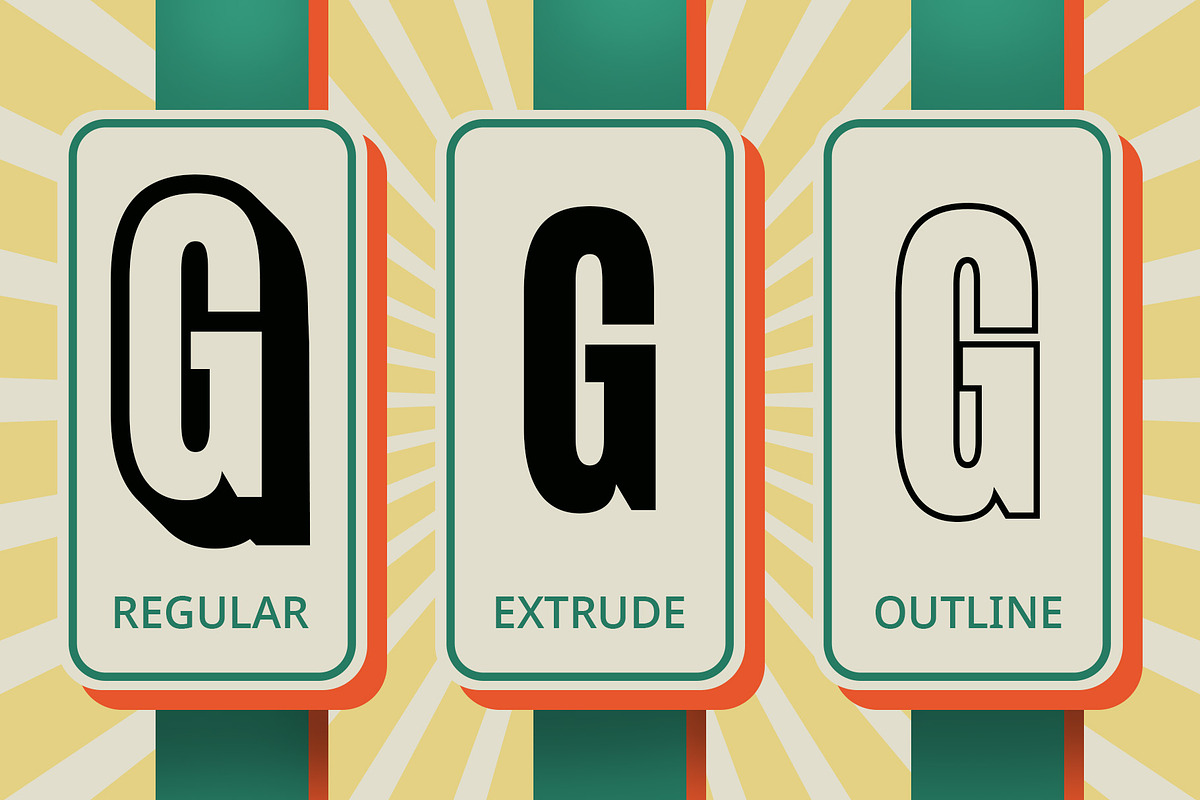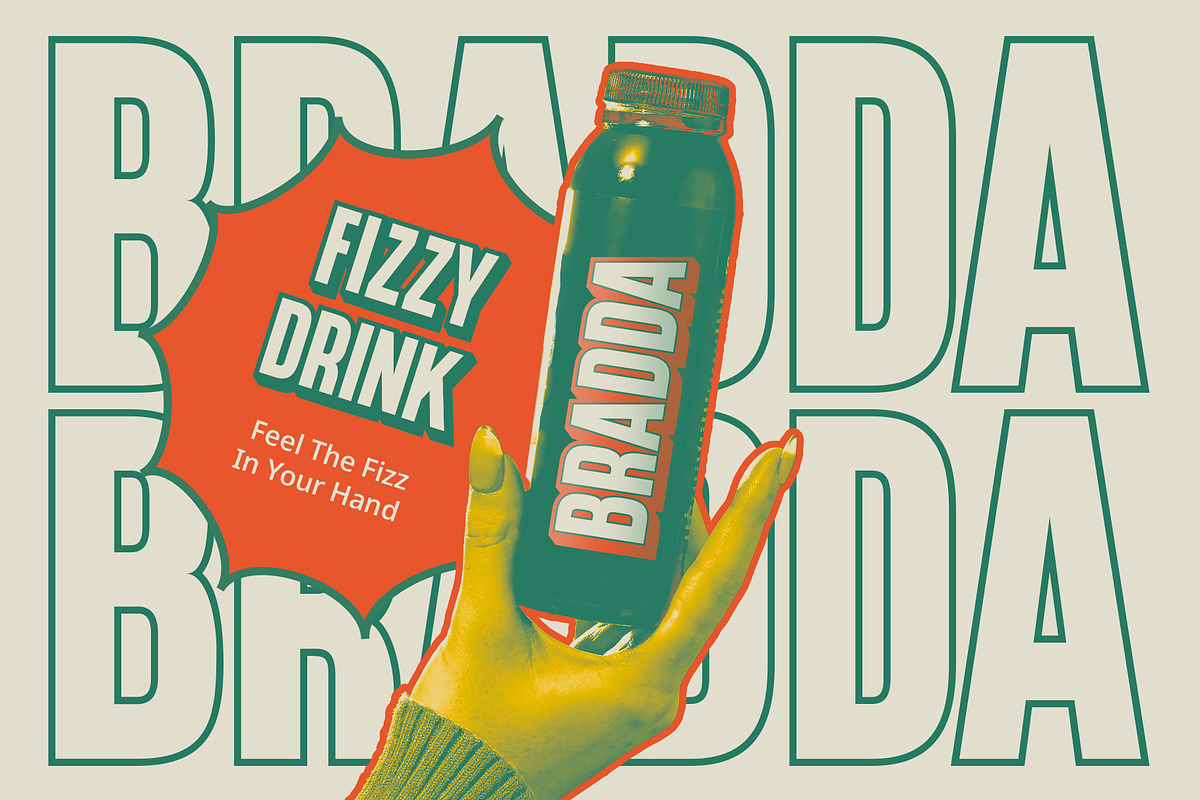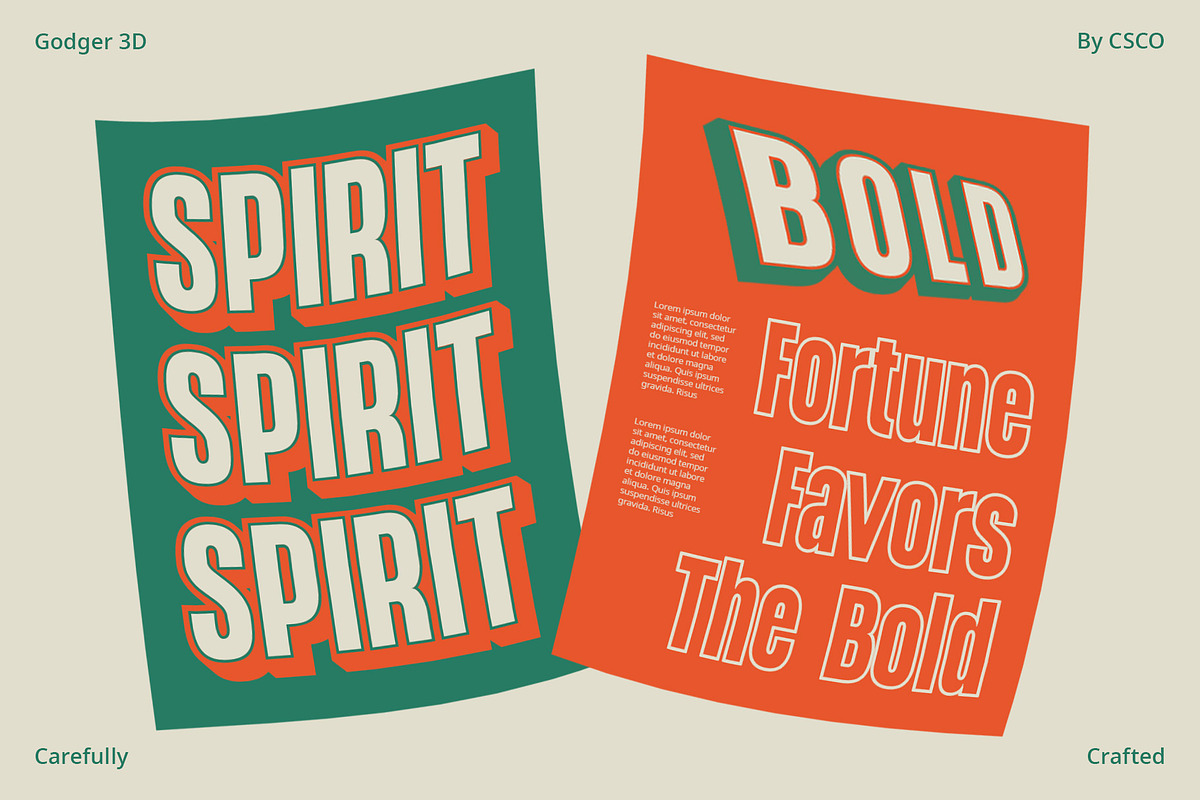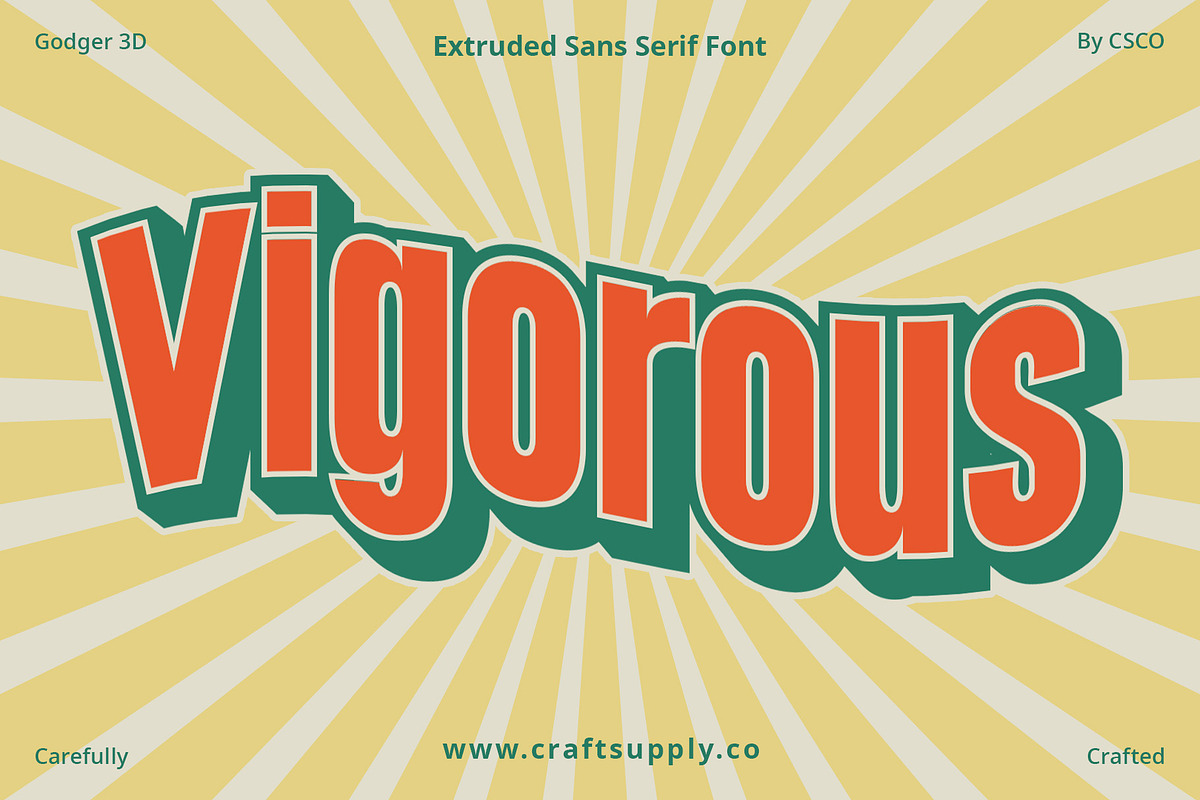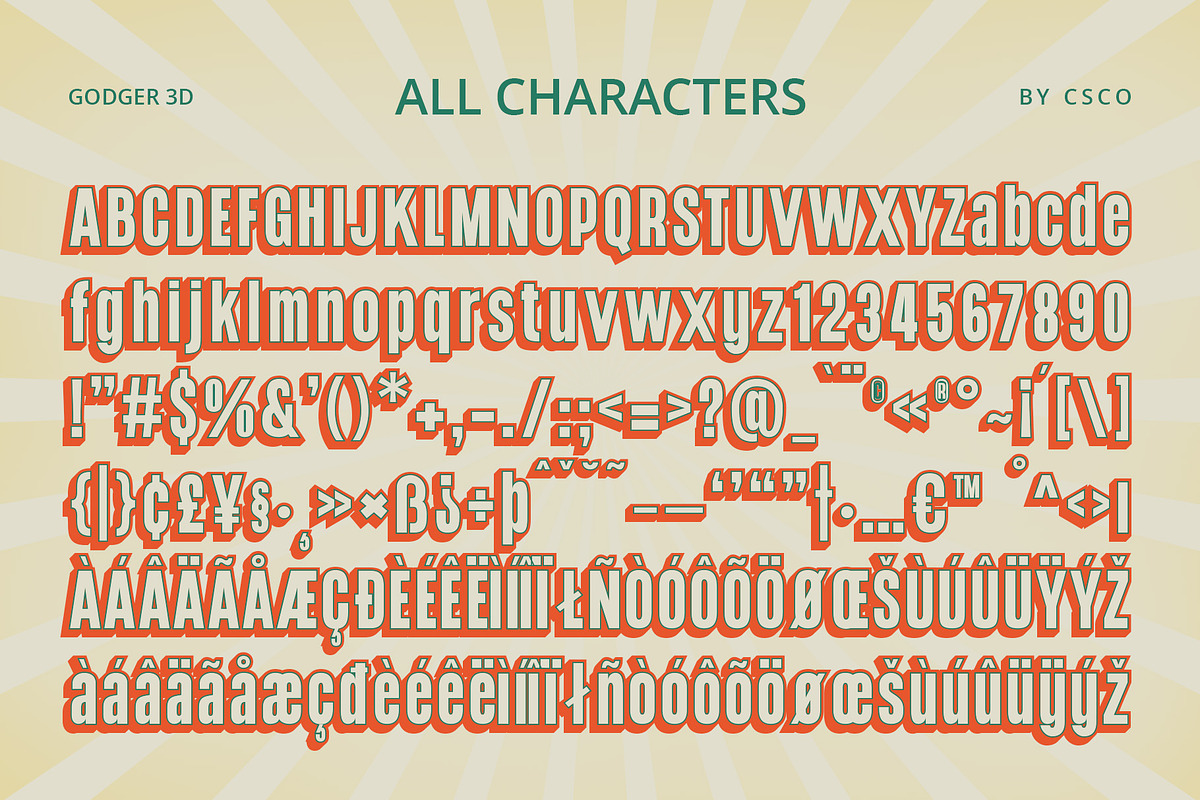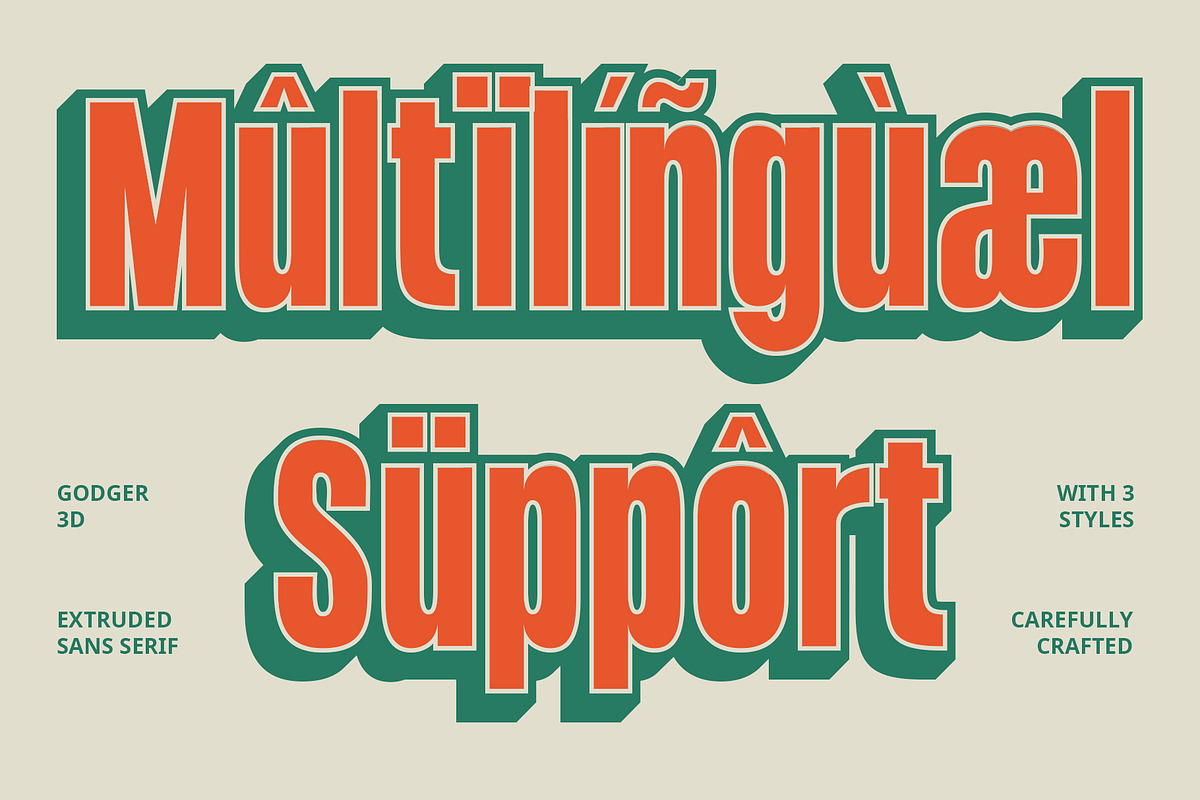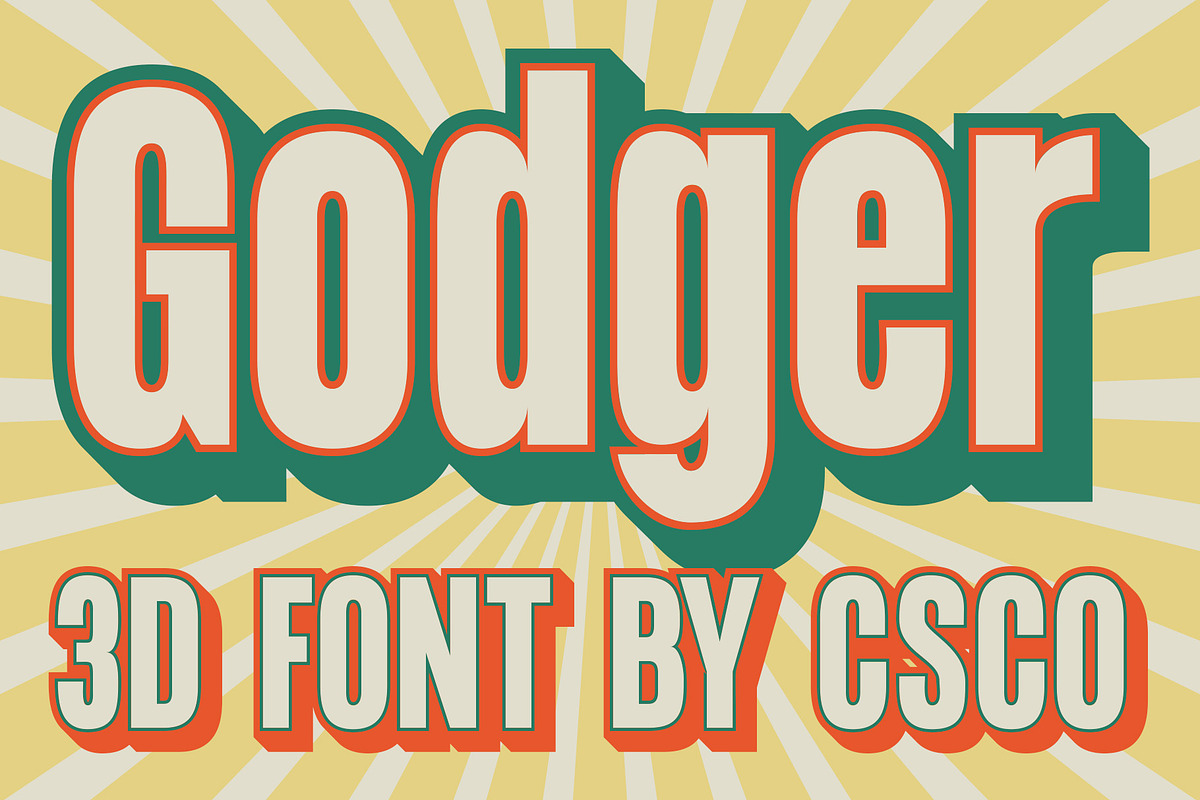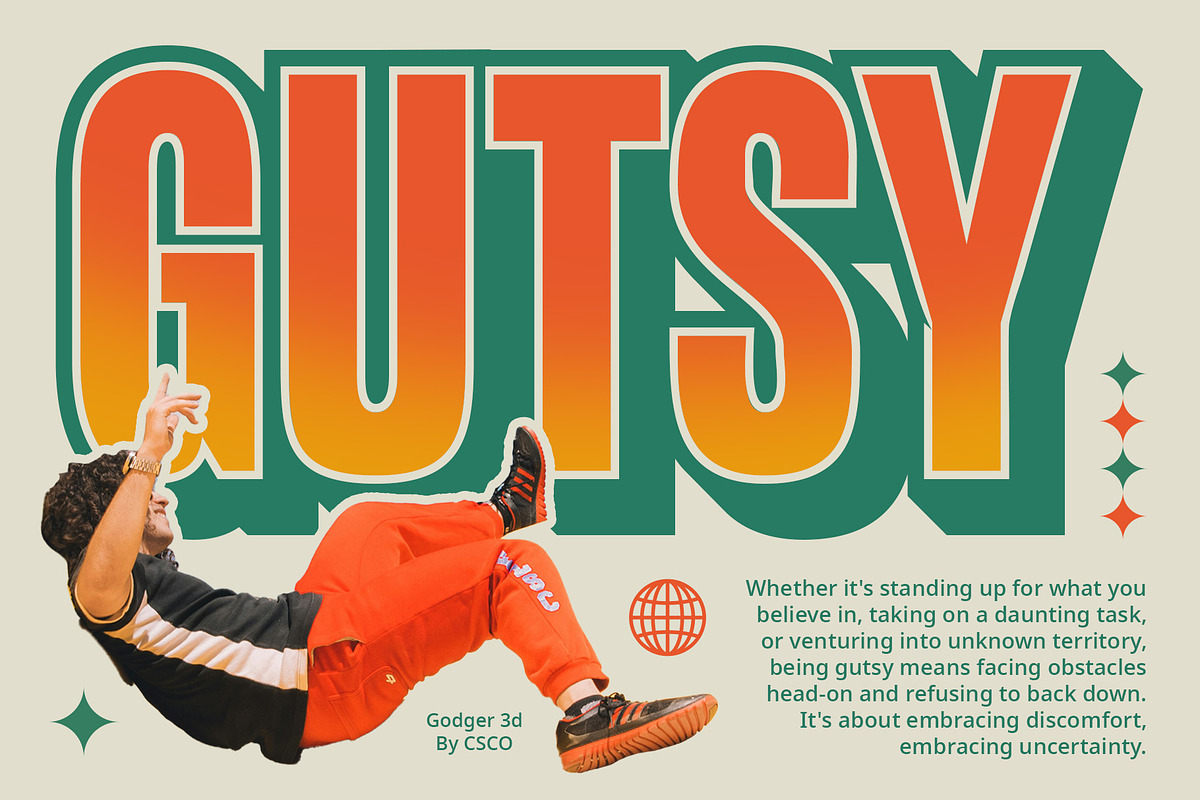
Godger 3D
Godger 3D: Bold and Impactful Display Typeface
Bold Condensed Design Godger 3D features a bold condensed design that exudes strength and authority. Its compact form makes it ideal for grabbing attention and delivering a powerful message.
Low Moderate Contrast With low to moderate contrast, This sans serif font maintains legibility even at smaller sizes while still retaining its bold presence. It ensures clarity and readability across various applications.
3D Effect The font is enhanced with a striking 3D effect, adding depth and dimension to each character. This eye-catching feature elevates the font’s visual impact, making it stand out in any design.
Perfect for Display Designed specifically for display purposes, This font shines in headlines, banners, posters, and other prominent elements. Its boldness and 3D effect make it a go-to choice for projects that demand attention.
Captivating Boldness with Depth This font combines boldness, legibility, and a striking 3D effect to create a display typeface that commands attention and delivers impact. Whether used for branding, advertising, or signage, Godger 3D ensures your message is seen and remembered.